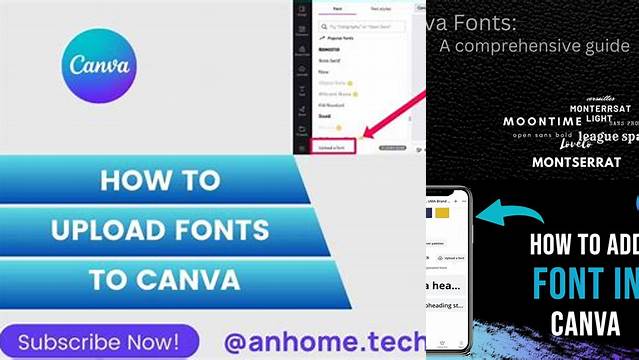
Canva Fonts: Your Ultimate Guide To Design
Hey guys! Want to jazz up your designs on Canva? Choosing the right font is like picking the perfect outfit – it totally transforms your look! This guide will walk you through everything you need to know about how to use fonts on Canva, from the basics to some super cool advanced tricks. Let's get started and make your designs pop!
Understanding Canva Fonts: Your Design's Best Friend
Alright, so you're diving into the world of Canva, and you're probably thinking, "Where do I even begin with fonts?" Well, don't sweat it! Understanding Canva fonts is the first step to creating stunning visuals. Canva has a massive library of fonts, and each one has its own personality. Some are bold and attention-grabbing, perfect for headlines, while others are elegant and subtle, great for body text. It's all about matching the font to your message and your brand.
When you first open Canva, you'll notice the text tool. Clicking on it lets you add text boxes to your design. From there, you can explore the font options. Canva organizes its fonts in a way that makes it easy to find what you need. You'll see categories like "Serif," "Sans Serif," "Display," and "Handwriting." Serifs have those little decorative strokes at the ends of letters, giving them a classic feel. Sans serifs are clean and modern, without those strokes. Display fonts are often more unique and eye-catching, great for grabbing attention. And Handwriting fonts mimic, well, handwriting, adding a personal touch. But that's not all! Canva also helps you filter fonts by style, like bold, italic, or rounded. You can also search for specific font names or even filter by language. Seriously, it's like having a whole font store right at your fingertips!
Think about it – your choice of font can completely change how your audience perceives your design. A playful font might be perfect for a children's event poster, while a professional font is better suited for a business presentation. Using the right font helps you communicate your message clearly and effectively. Plus, Canva makes it super easy to experiment. You can quickly change fonts, sizes, and colors until you find the perfect combination. This is where the fun begins. Don't be afraid to try different fonts and see what works best for your project. Sometimes, the most unexpected combinations create the most stunning results. Remember, there are tons of design ideas and templates available on Canva to help you get started. Explore them, and you'll get a better idea of how different fonts can be used in different contexts. So, get ready to unleash your inner designer and make those fonts work for you!
Finding and Selecting the Right Fonts on Canva
Alright, finding the perfect font is like finding the holy grail of design, right? But don't worry, Canva has made it super simple to find and select the right fonts on Canva. Let's break down how to navigate the font library and choose fonts that are absolutely perfect for your project.
First things first, open your Canva design and click on the text tool. When you click on the text, the editing options will pop up. You'll see the font menu – it's typically right at the top. Click on the font name that's there by default, and BAM! A list of fonts appears. This is your treasure chest of typography. Now, you can either scroll through the entire library or use some nifty filtering options. Canva has pre-sorted fonts into categories like serif, sans serif, display, and handwriting, which we talked about earlier. This is a great starting point if you already have a general idea of the style you're after. For example, if you want something modern and clean, sans serif is your jam. Need something more traditional and elegant? Serif is your best bet.
But wait, there's more! Canva also has a search bar. Know the name of the font you want? Type it in, and boom, there it is. This is super handy if you have a specific font in mind or want to maintain brand consistency. Also, Canva suggests fonts based on your design. As you add elements, Canva will suggest fonts that it thinks complement the overall aesthetic. Take advantage of these suggestions, especially if you're new to design. Once you've found a font you like, selecting it is as easy as clicking on it. Canva will instantly apply it to your text box. Experiment with different font sizes, colors, and styles to see how it looks. Canva lets you preview fonts as you're browsing. When you hover over a font, it shows you a live preview of how it will look in your text box. This is an absolute game-changer! It allows you to quickly compare different fonts without having to apply them one by one.
Remember, choosing a font isn't just about aesthetics. It's about clarity, readability, and brand consistency. You want your audience to be able to easily read your text and understand your message. Keep your design consistent by using the same fonts throughout. And don't be afraid to mix and match! Pair a strong headline font with a more subtle body text font. Canva makes it easy to find the perfect font, and once you've got the right one, you're one step closer to design success!
Customizing and Formatting Fonts in Canva
Okay, you've picked your perfect font. Now what? It's time to get into the nitty-gritty of customizing and formatting fonts in Canva! This is where you can really make your design shine, adding those extra touches that set it apart. Get ready to level up your font game.
First off, let's talk about the basics. Once you've added your text and selected a font, you'll find a range of formatting options at the top of the Canva editor. You can change the font size by typing in a number or by using the plus and minus buttons. Adjust the font color with the color palette. You can also make your text bold, italic, or underlined. These options are super handy for emphasizing key information or adding visual interest. Line spacing is another key element to play with. Adjust the space between lines of text to improve readability. Canva also allows you to change the letter spacing. This can give your text a more open and airy feel, or tighten things up for a more compact look. This is especially useful for headlines. You've also got alignment options. Align your text to the left, right, center, or justify it. Alignment is crucial for creating a balanced and organized design. Make sure your text is aligned in a way that complements your overall layout.
Want to add some extra flair? Canva has some advanced features too. You can add effects to your text, such as shadows, outlines, and glows. These effects can make your text pop off the page. Use them sparingly, though, so they don't overpower your design. Canva also allows you to curve your text. This is a fun way to create unique shapes and add a playful touch to your design. For instance, you could curve text around a circle to make a logo. And did you know you can animate your text? Canva offers a bunch of animation options that can make your text come alive. This is great for social media posts or presentations. You can also add a background to your text, which is great for creating a highlight and making sure your text stands out from the background. Experiment with different colors and styles. Canva's drag-and-drop interface makes it super easy to try different things and see what works best. Don't be afraid to play around. The more you experiment, the better you'll get at customizing your fonts. With these tips and tricks, you'll be able to transform your text from basic to brilliant! Now go out there and create some stunning designs!
Pay attention to spacing and alignment. The spacing between letters, words, and lines of text can greatly impact readability. Make sure there's enough space between lines of text, especially if you're using a script or decorative font. Proper alignment is also essential. It provides a sense of order and structure to your design. Use consistent alignment throughout your design. Don't be afraid to use different text sizes and weights to create visual interest. Larger font sizes and bold weights can draw attention to important information. Use white space effectively. White space, or negative space, is the empty space around your text and other design elements. It helps to give your design a clean and uncluttered look. Don't overcrowd your design. Give your text some breathing room. Remember to consider your audience. Think about who you're designing for and what message you're trying to convey. Choose fonts that resonate with your target audience and align with your brand. And last but not least, practice and experiment! The more you work with fonts in Canva, the better you'll get at it. Try different combinations and styles, and don't be afraid to experiment with effects and formatting options. The more you practice, the more confident you'll become, and the more amazing designs you'll create. Now go forth and design with confidence!